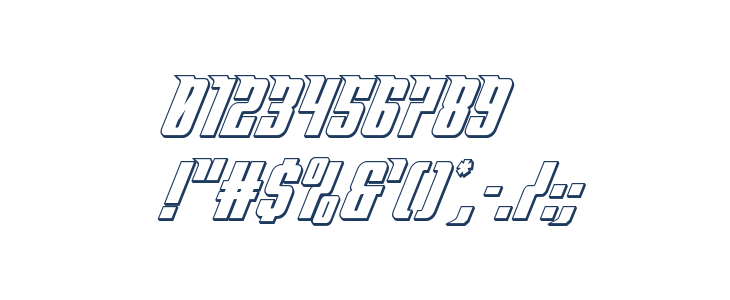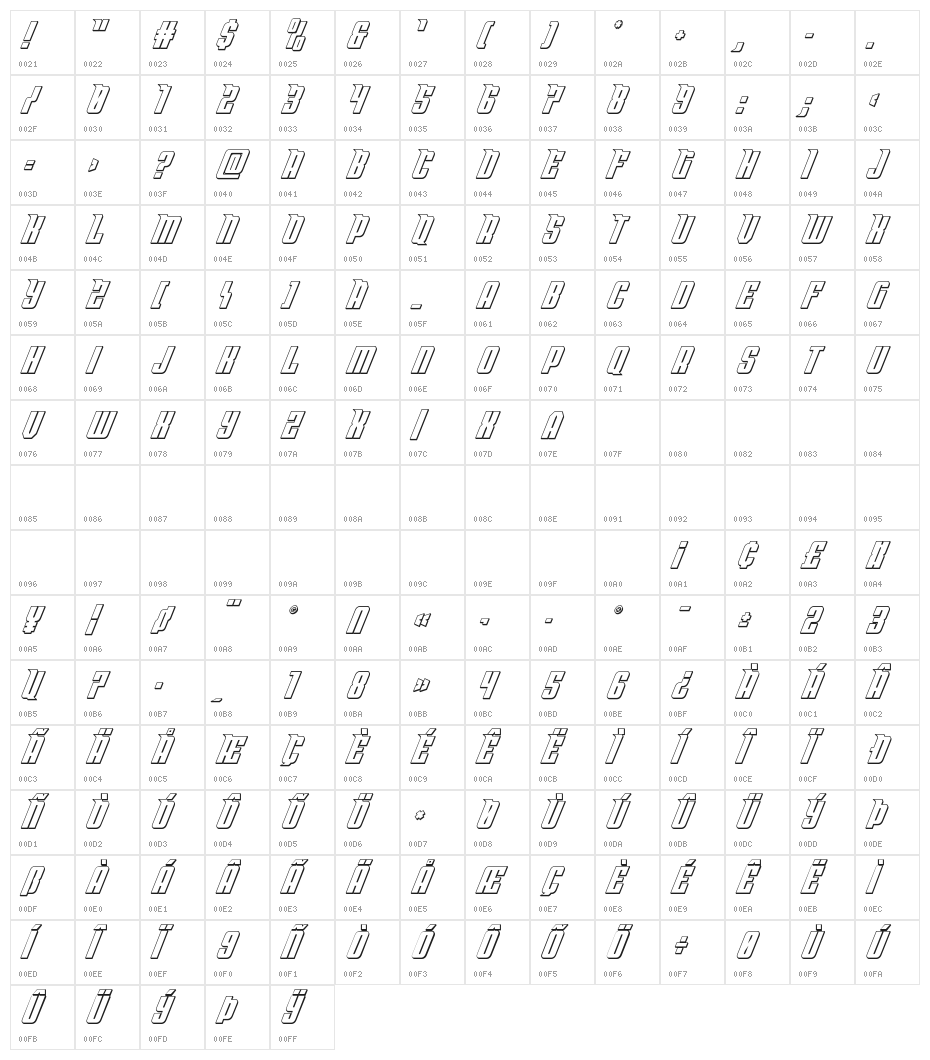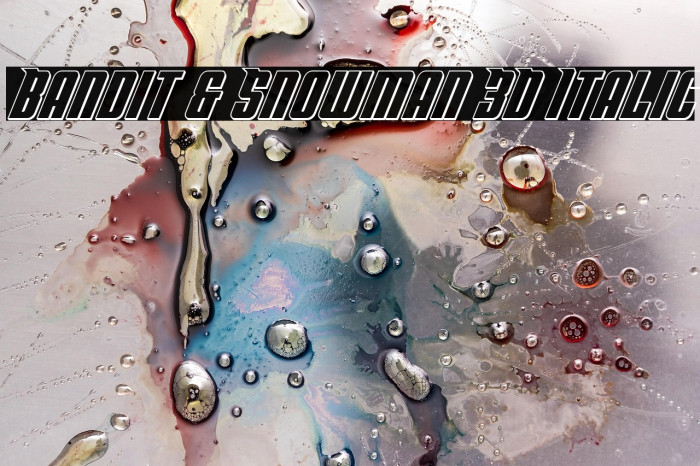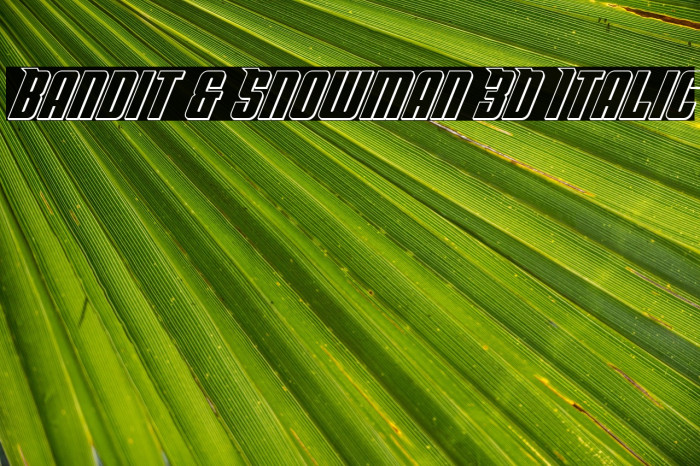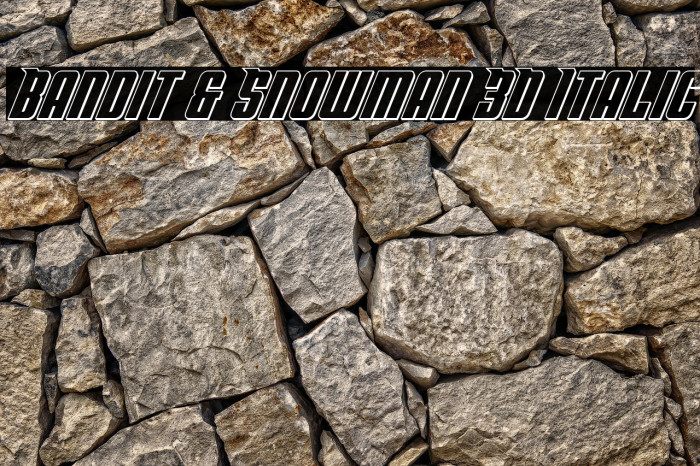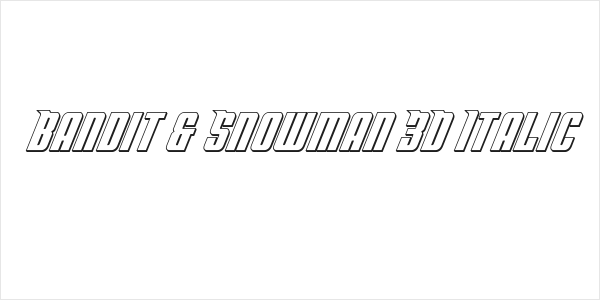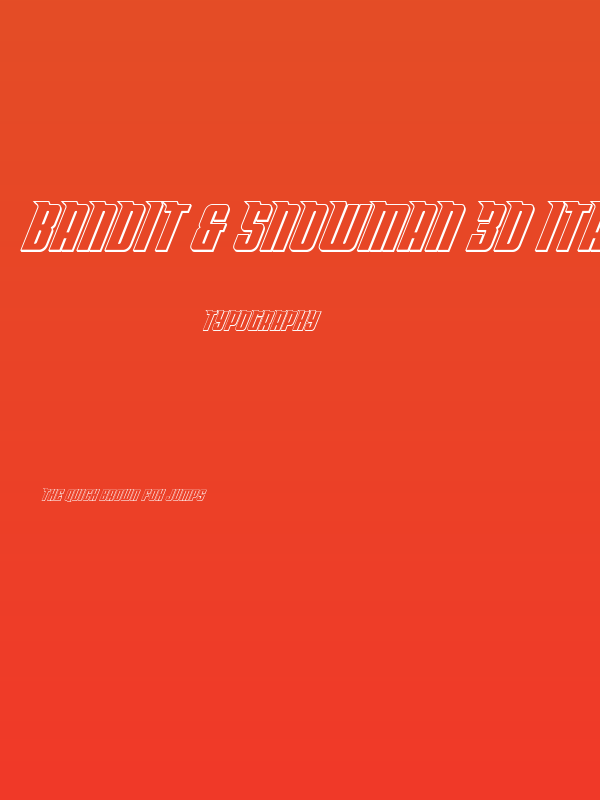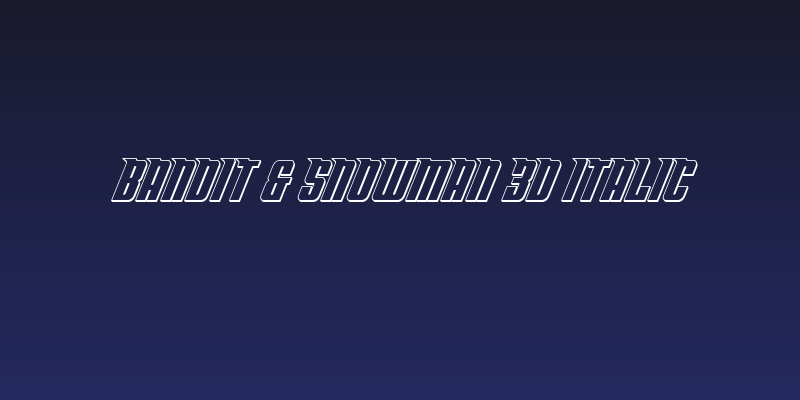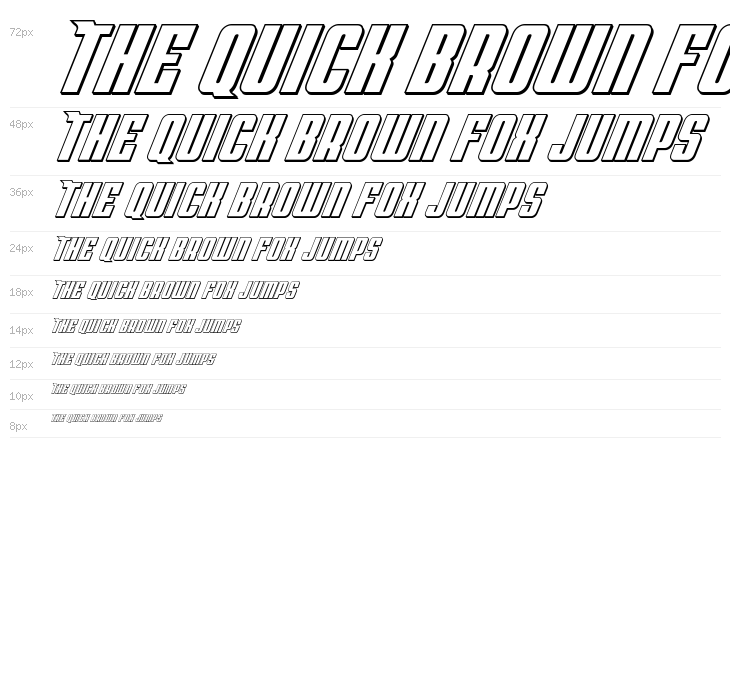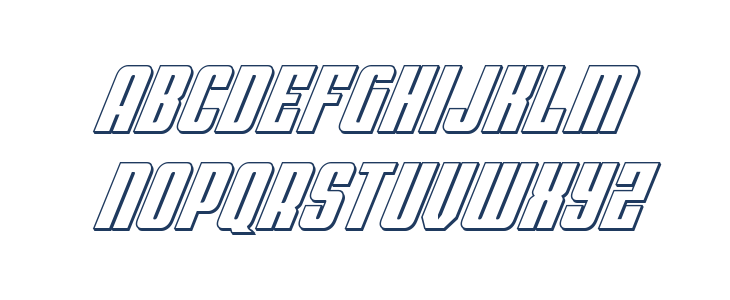
Bandit & Snowman 3D Italic Font
Bandit & Snowman 3D Italic Description
This font features a bold, italicized style with a distinct 3D effect, giving it a dynamic and modern appearance. The characters are outlined, creating a sense of depth and movement. The angular, geometric shapes of the letters contribute to its futuristic and edgy look. Each character is designed with a consistent slant, enhancing the italicized effect. The font maintains a uniform thickness throughout, emphasizing its boldness. Its unique style makes it suitable for projects that require a strong visual impact.
| Proposed Projects | Ideal for use in posters, video game titles, sports branding, and any project needing a bold, futuristic look. |